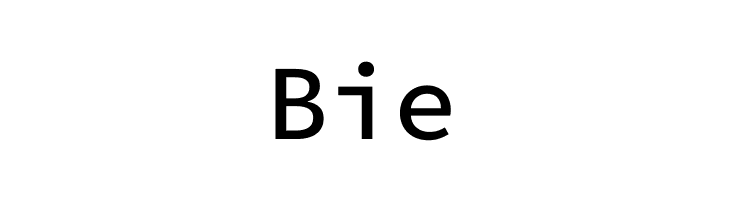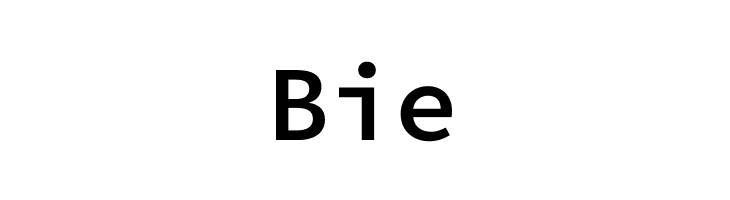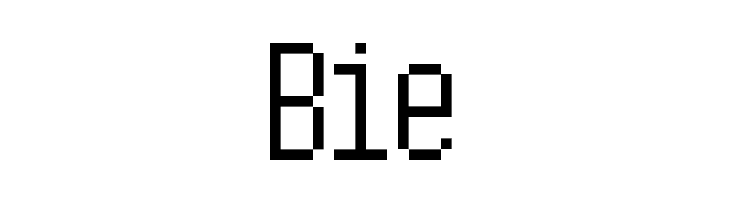
• Source Code Pro Medium
A modern, monospaced font with medium contrast, ideal for coding and technical use.
• Source Code Pro SemiBold
A clean, modern monospaced font with medium contrast and excellent readability.
• Oxygen Mono
A clean, modern monospaced typeface ideal for coding and data presentation.
• Archivo Narrow Regular
A modern, narrow sans-serif font with clean lines and uniform stroke width.
• Archivo Narrow Bold
A bold, narrow sans-serif typeface with a modern and clean design.
• Alef Bold
A bold, modern sans-serif font with consistent stroke width and normal spacing.
• LowerResolution
A bold, modern sans-serif font with clean lines and geometric shapes.
• Perdido
A bold, modern sans-serif font with geometric lines and uniform width.
• KBYoureJustMyType
A vintage typewriter-style monospaced font with consistent stroke width and prominent serifs.
• Long Pixel-7
A pixelated, blocky font with a retro digital aesthetic.